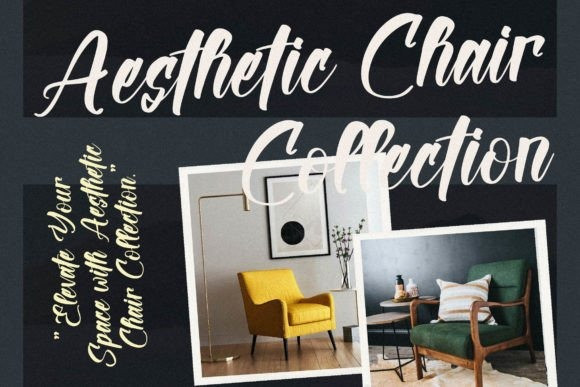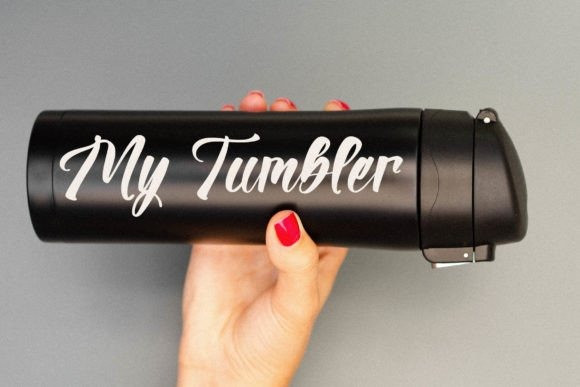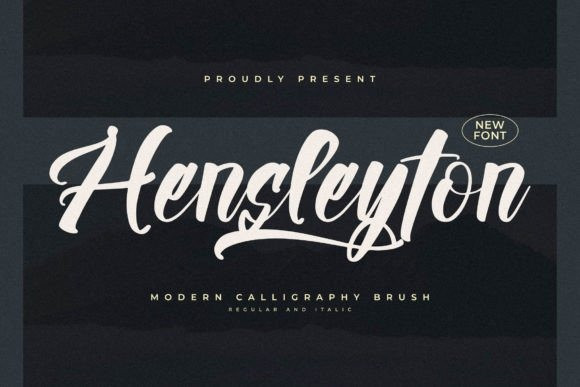
Hensleyton Font
Hensleyton Font – Modern Calligraphy Brush , from Glorytype Studio, suitable for any projects such as: logos, branding projects, homeware designs, product packaging, mugs, quotes, posters, shopping bags, t-shirts, book covers, name card, invitation cards, greeting cards, label, photography, watermark, special events, and all your other lovely projects that need a beautiful script taste.